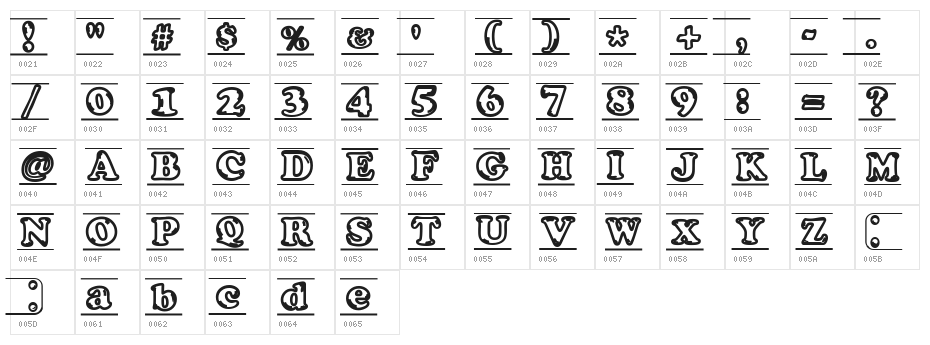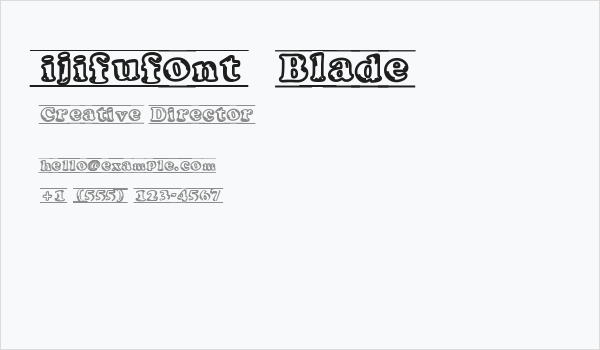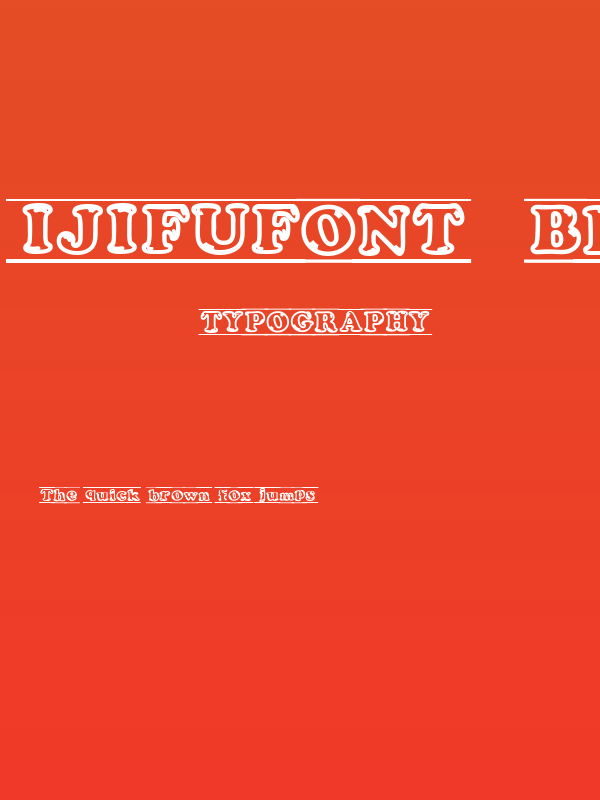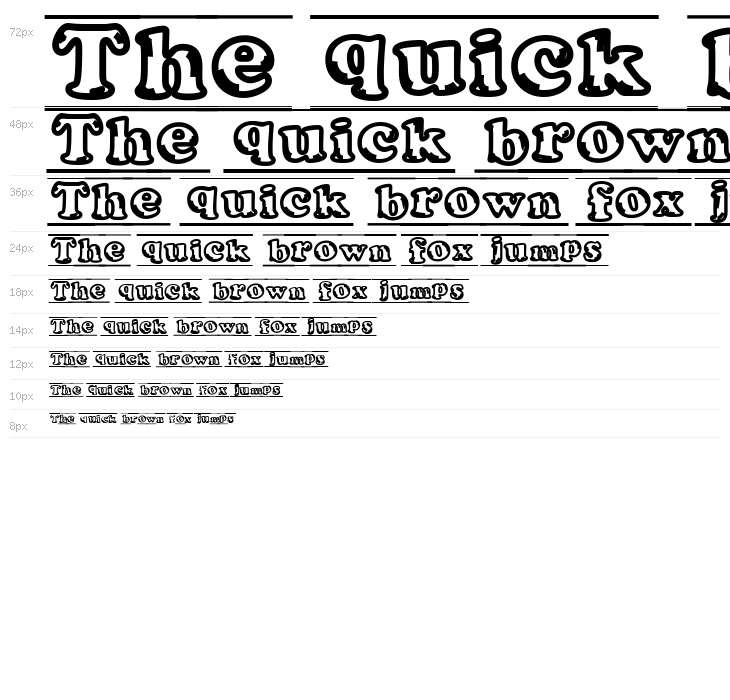
ijifufont Blade Font
ijifufont Blade Description
This font features a bold and decorative style with a strong outline that gives each character a three-dimensional appearance. The uppercase and lowercase letters maintain a consistent design, with rounded edges and a playful, cartoon-like quality. The numerals and special characters follow the same aesthetic, ensuring a cohesive look across all text elements. The font's unique style makes it stand out, with a bold presence that captures attention. It is well-suited for creative projects that require a fun and engaging typeface.
| Proposed Projects | Ideal for posters, children's books, comic strips, and playful branding. |